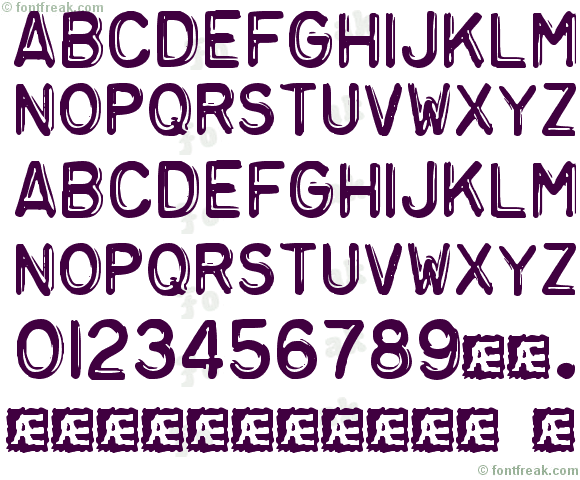
Embossing Tape 2 (BRK)
Embossing Tape 1 (BRK)
Embossing Tape 3 (BRK)
The Embossing Tape font by Ænigma Fonts is a striking display typeface that captures the essence of tactile, three-dimensional lettering. This decorative font mimics the look of embossed tape, giving it a unique and playful character that sets it apart from conventional typefaces. The strokes are bold yet rounded, providing a balanced weight that conveys a sense of modernity while maintaining an approachable feel. Its spacing is thoughtfully designed to ensure legibility, making it suitable for various applications. The embossed effect adds depth and texture, making each letter appear as if it has been carefully crafted from a roll of tape.
Embossing Tape is ideal for a range of creative projects. It can be effectively used for wedding invitations, where its whimsical nature can add a personalized touch. For small businesses, this font is perfect for branding materials such as labels and packaging, enabling products to stand out on shelves. Graphic designers can leverage this font for event posters, particularly for informal gatherings or creative workshops, where a fun and engaging aesthetic is desired. Additionally, Embossing Tape can be a great choice for online content, such as social media graphics and website headers, where a distinctive look can enhance user engagement.
What truly makes Embossing Tape stand out is its ability to combine playfulness with professionalism. Its embossed aesthetic offers a fresh take on traditional typefaces, allowing users to express creativity while maintaining clarity. For anyone looking to enhance their design projects, the Embossing Tape font free download is an opportunity not to be missed.